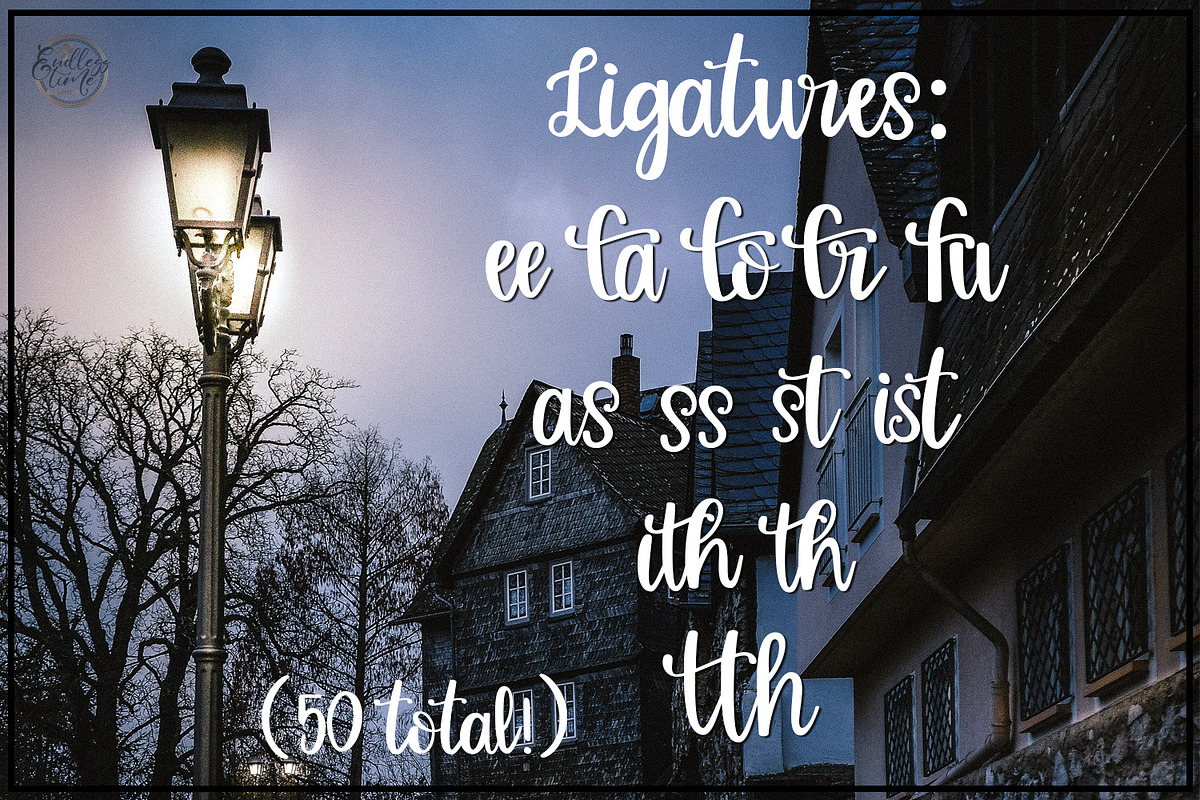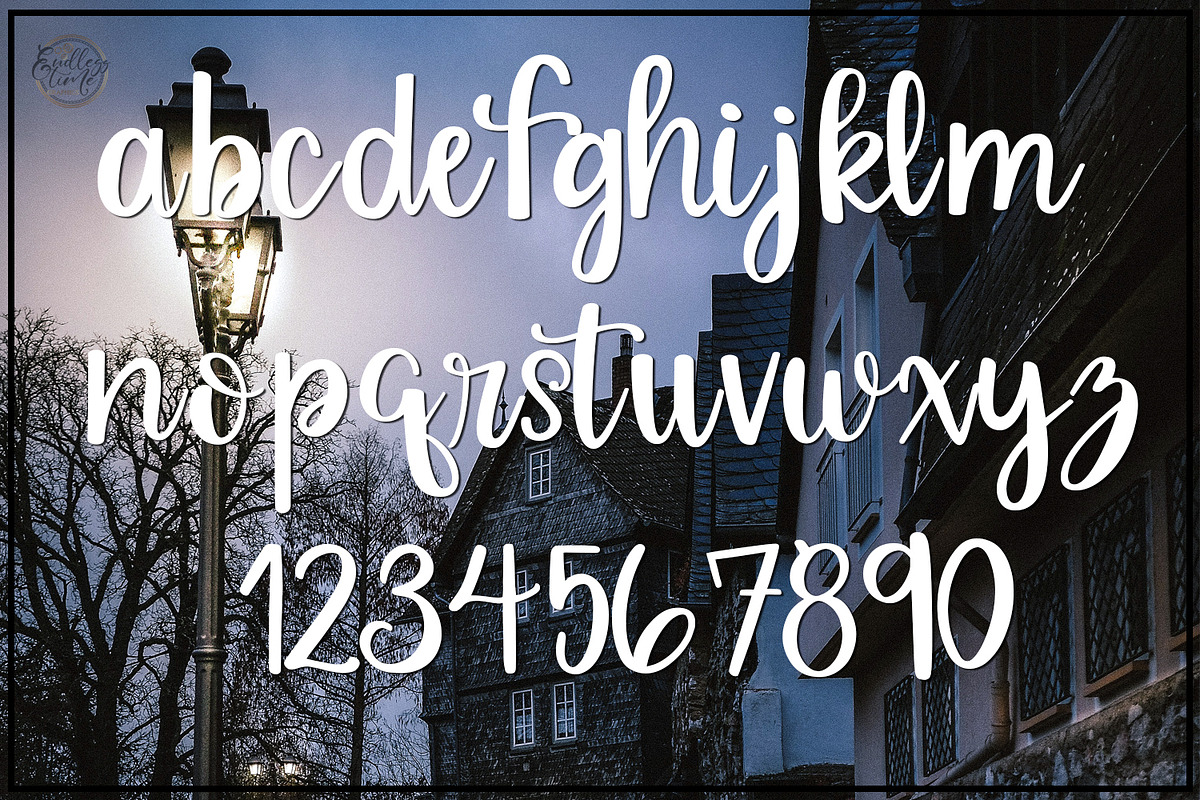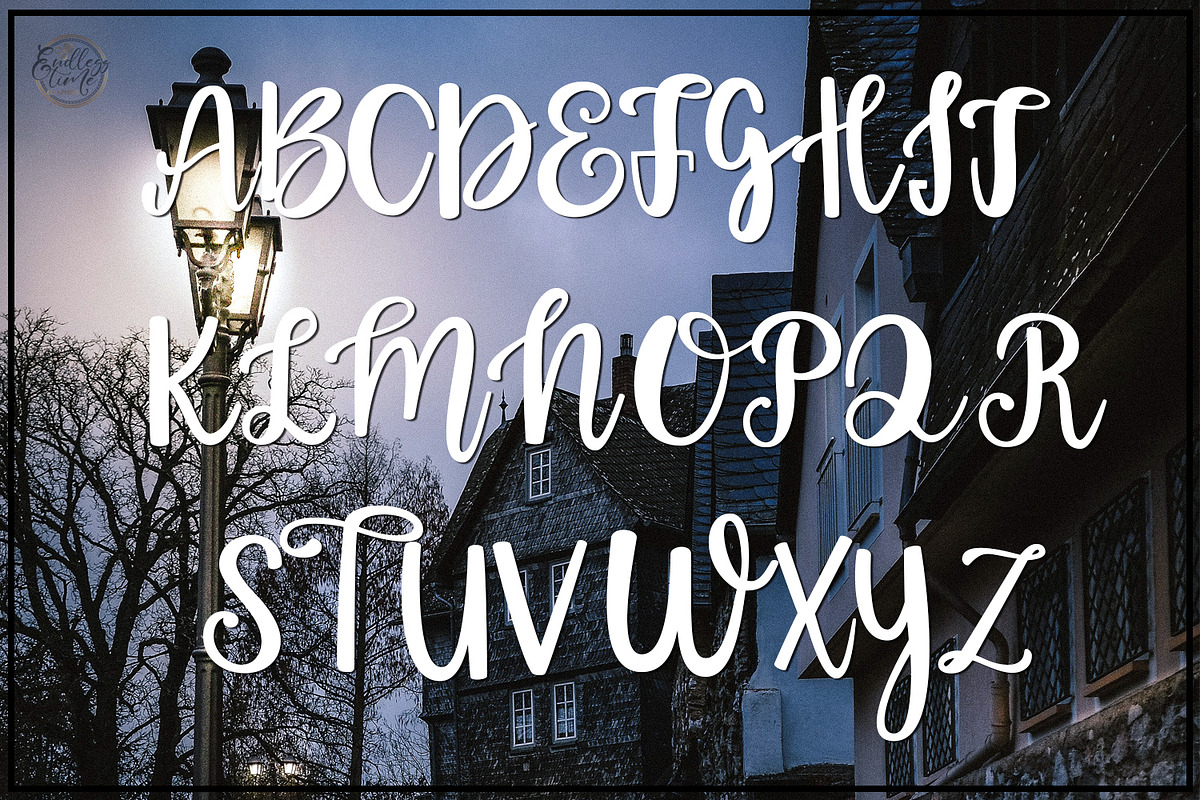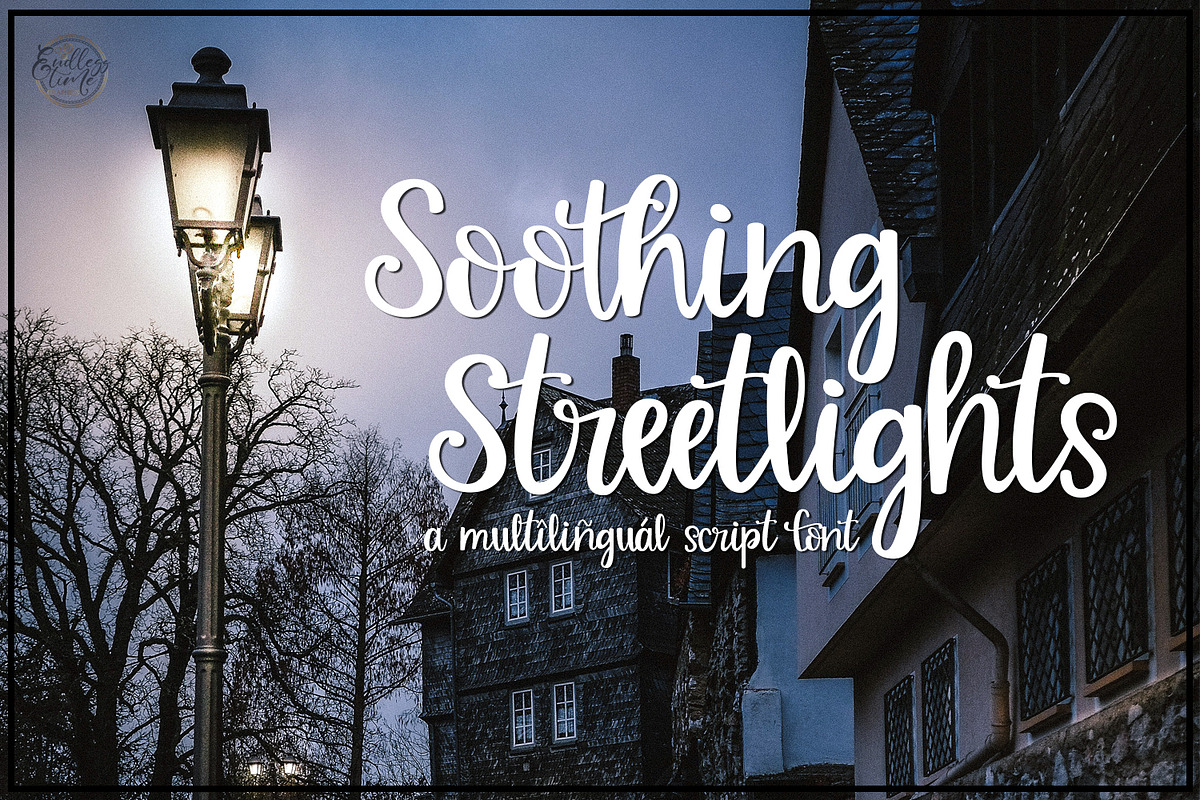
Soothing Streetlights - Handlettered
Introducing Soothing Streetlights, my first script font creation that fills me with immense pride. This font has been a labor of love, capturing my passion and dedication over the past two years since its inception in early 2021. While it may not be flawless, I believe it's time to conclude this chapter and embark on new creative endeavors.
With a total of 283 characters, including 50 delightful ligatures that infuse the font with a unique handwritten charm, Soothing Streelights offers a diverse range of options. It provides full support for most Western European Languages, ensuring versatility in expressing your thoughts and ideas. The font encompasses a full uppercase set, lowercase set, as well as numbers and punctuation marks.